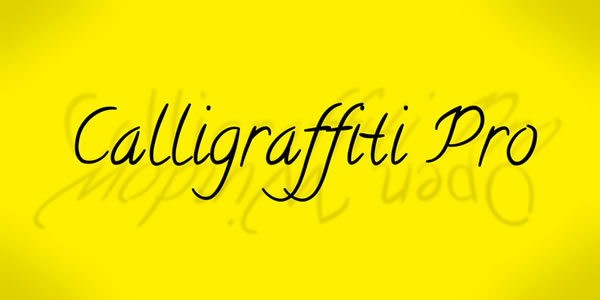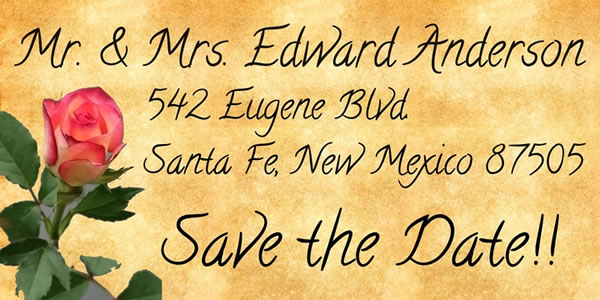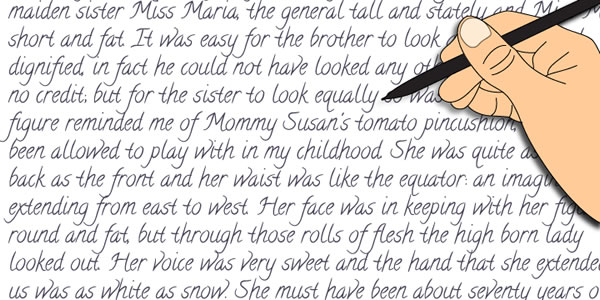
Calligraffiti Pro Font
About Calligraffiti Pro Font
Calligraffitti by Open Window owes its credit to mom and all her years of Calligraphic experience. This impromptu rendering of her calligraphic alphabet captures her years or formal practice blended with a rare encounter with the mood altering music of Santana.